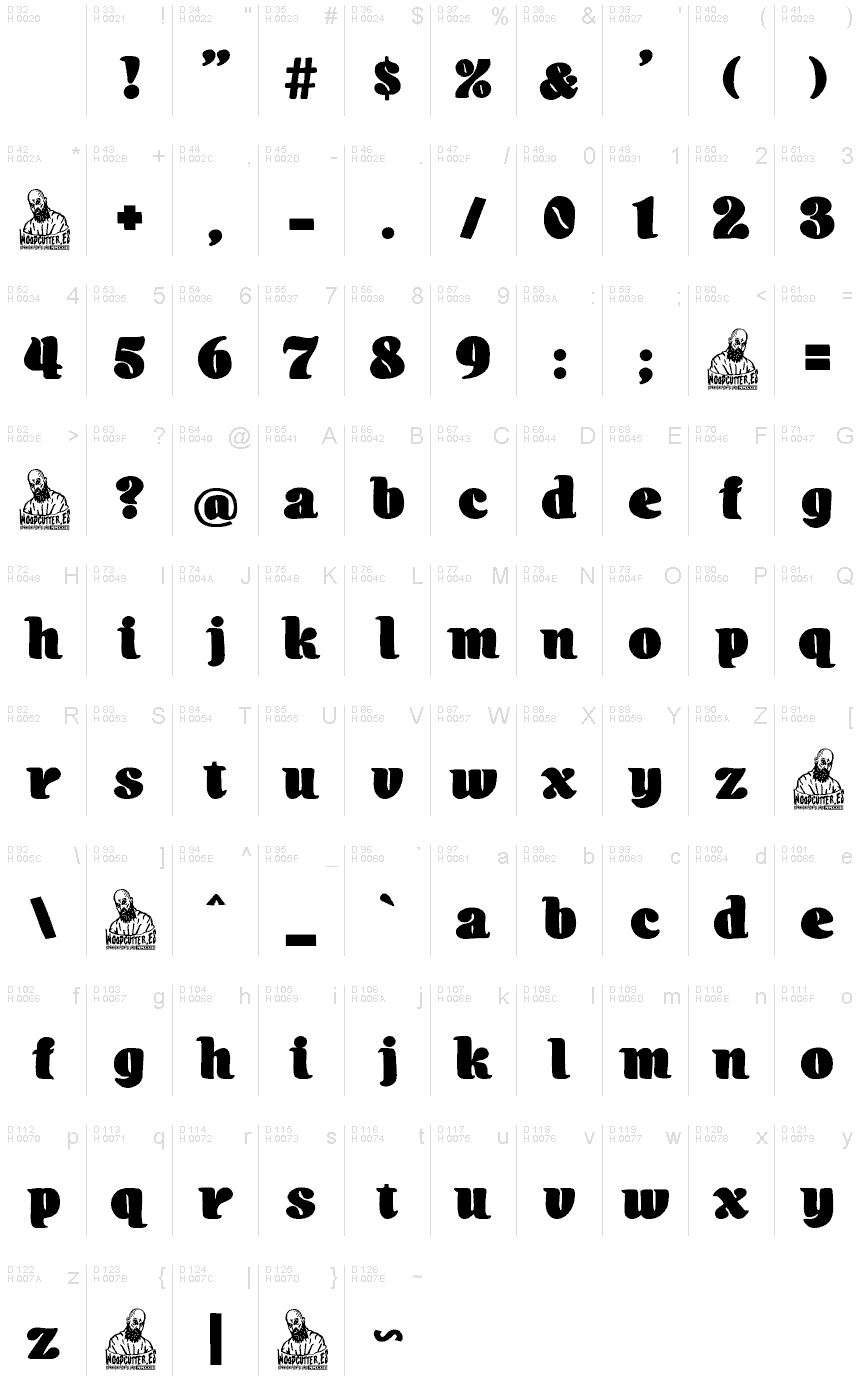
Lessons in Love
Lessons in Love font by Woodcutter captures an inviting, groovy aesthetic with its bold and rounded shapes. This endearing display font showcases a captivating retro influence, exhibiting smooth transitions and uniformity throughout its design. Its casual elegance makes it incredibly appealing for different audiences.